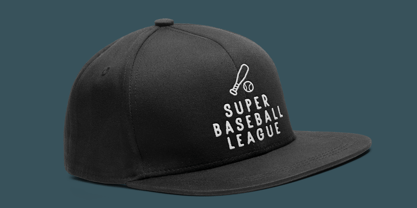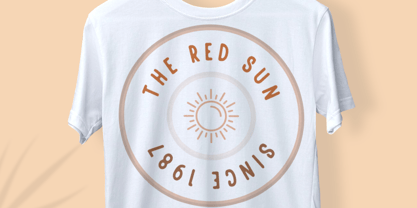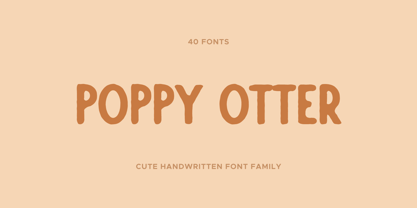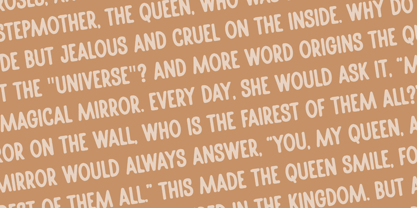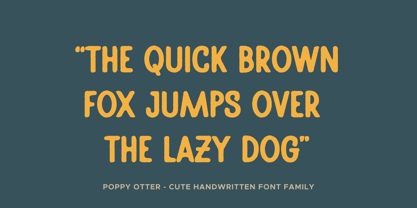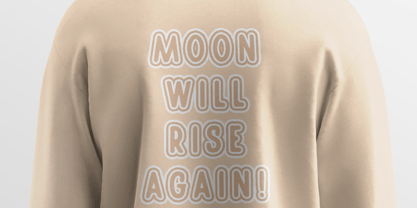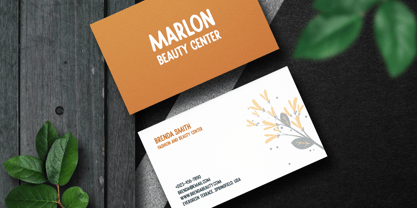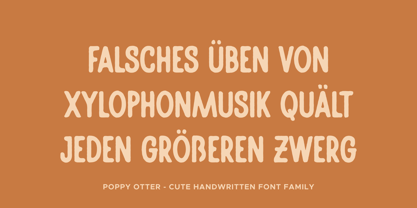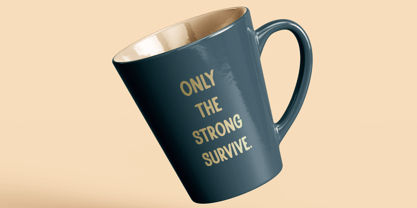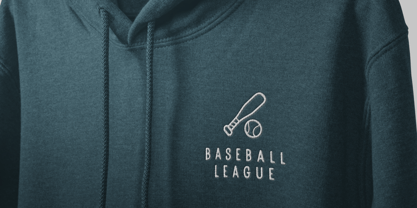
Poppy Otter
The Poppy Otter Font Family was designed by Mariia Çakıcı and published by OtterType. Poppy Otter contains 39 styles and family package options. More about this family
Poppy Otter is a handwritten display font. It's cute and child-friendly and also easy to read, which makes it perfect match for many projects. You can use it for a variety of design projects like posters, cards, books, invitations, games, covers, social media posts, quote photos, branding, editorials, and much more. Poppy Otter is multilingual and supports 85 Latin languages.
The family contains 40 font styles, including Regular, Italic, Outline, and multiple textured variations with matching italics and outlines. This extensive set allows designers to create everything from clean modern headlines to rough, distressed lettering with personality.
Poppy Otter works beautifully in posters, branding, packaging, social media graphics, logos, merchandise, children’s designs, editorial headlines, and playful display typography.
The family contains 40 font styles, including Regular, Italic, Outline, and multiple textured variations with matching italics and outlines. This extensive set allows designers to create everything from clean modern headlines to rough, distressed lettering with personality.
Mariia Çakıcı is an independent type designer creating a growing library of over 70 fonts, including large families with up to 40 styles. The collection focuses on Latin script and is built for branding, social media, packaging, and modern digital design. The portfolio includes everything from elegant handwritten scripts to bold display fonts and clean contemporary typefaces. Each font is designed to be versatile, easy to use, and ready for real-world projects—helping designers create distinctive and professional visuals with ease.